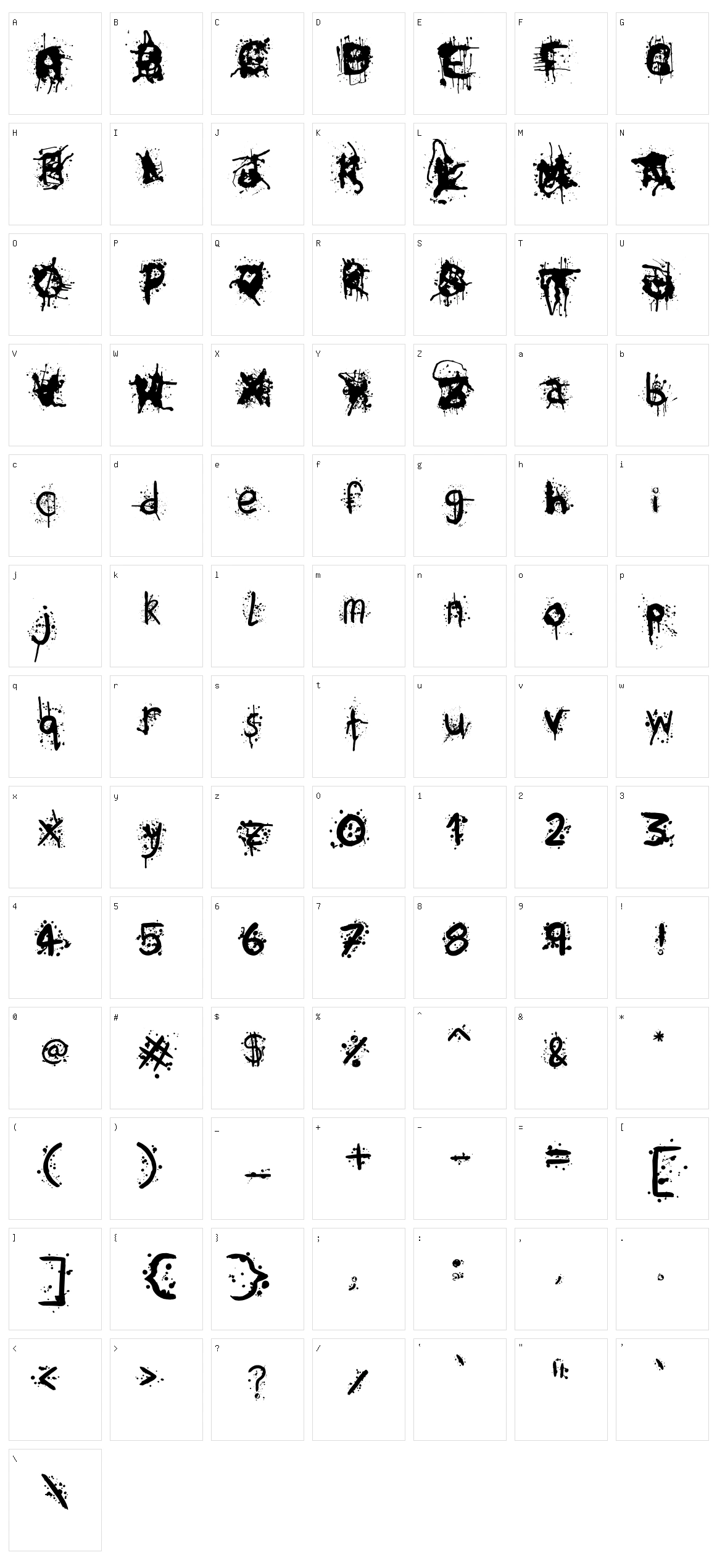
The free font Tumult is carefully designed by Sharvanna Kenny, showcasing a thoughtful balance of creativity and usability and falls under the Horror font style. When you download the ZIP file, it contains only 360.7 KB of font files, making it lightweight and quick to download. Please review the license details below to understand permitted usage and distribution rights. If license information is not available, we recommend using this font for personal projects only or contacting the author directly for commercial usage permissions.